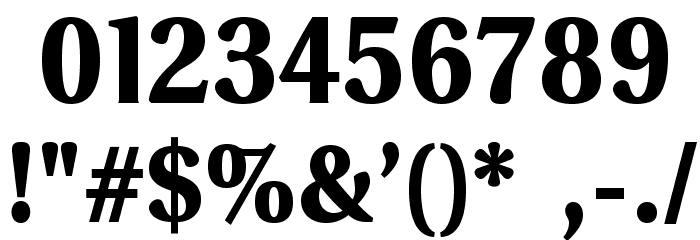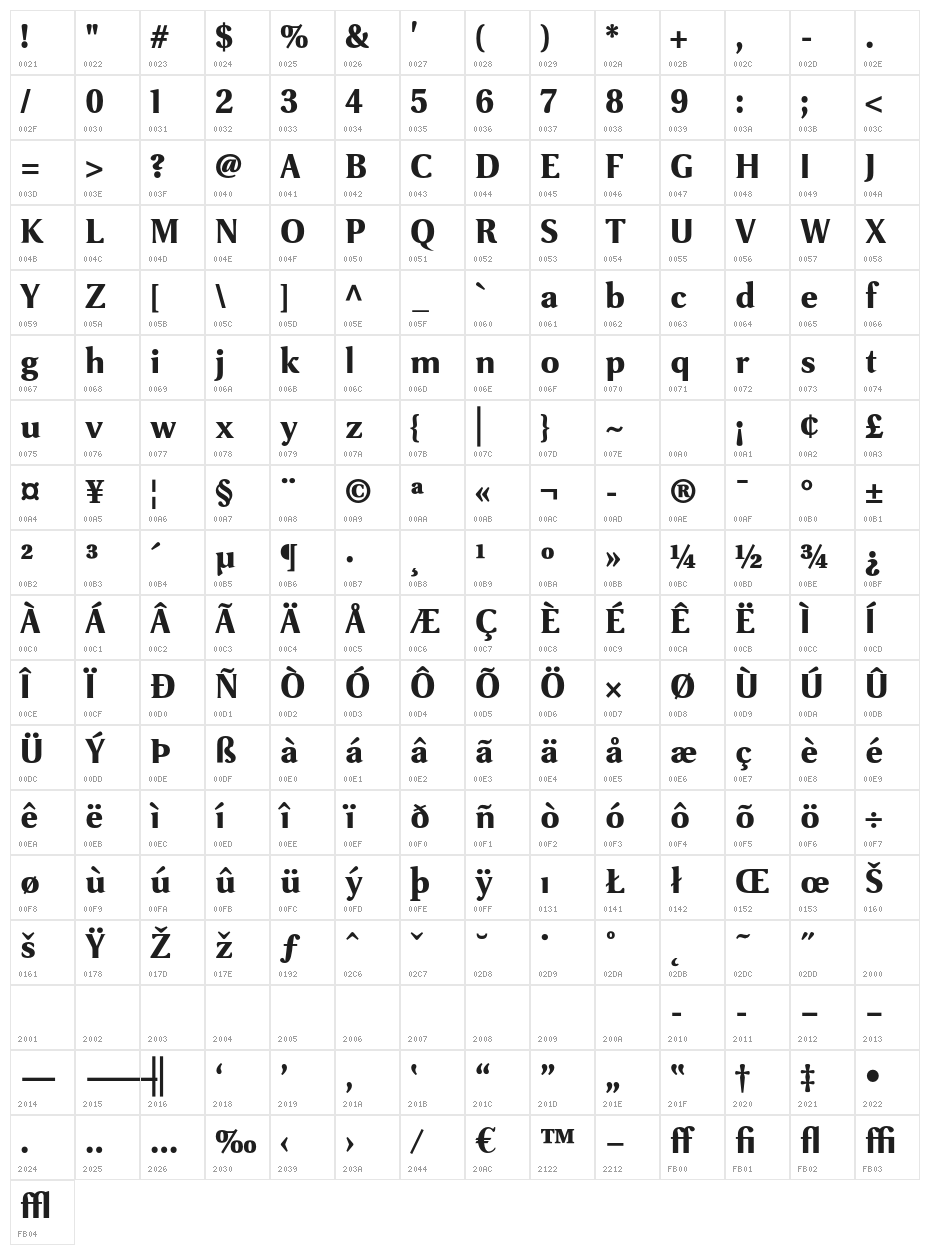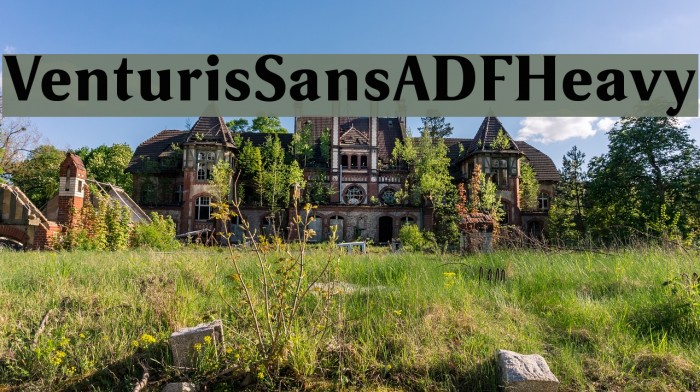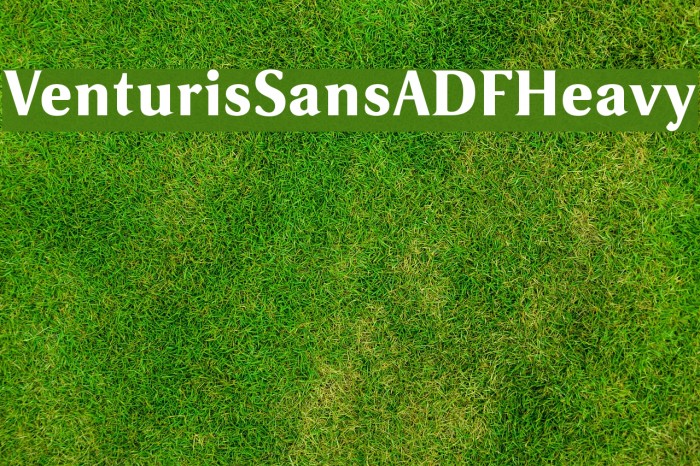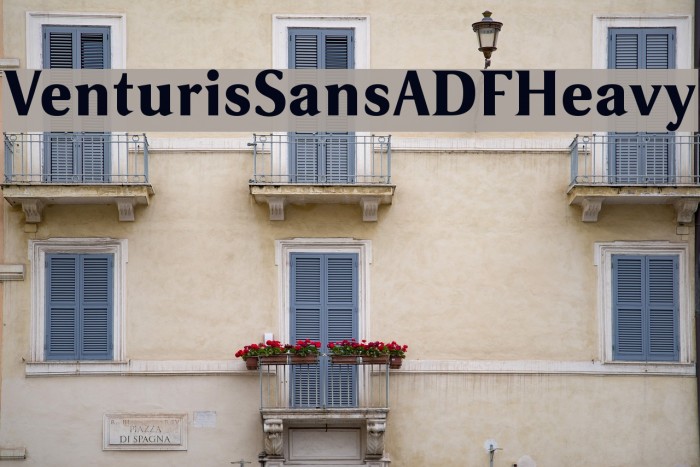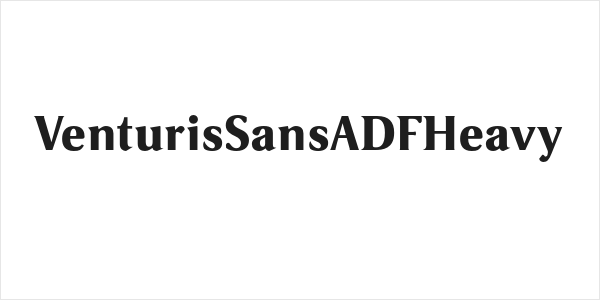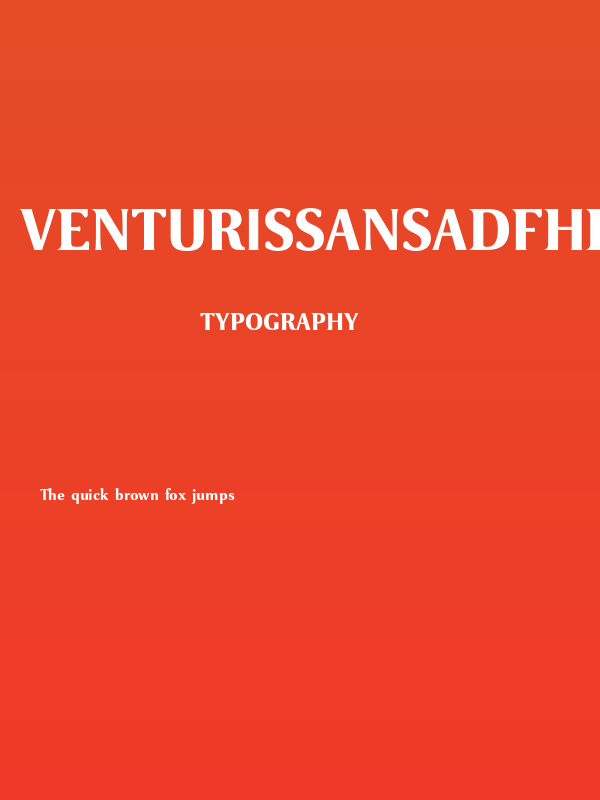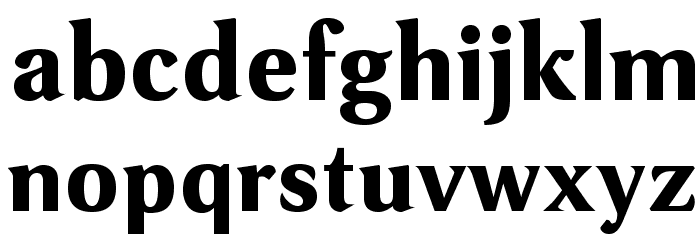
VenturisSansADFHeavy Font
VenturisSansADFHeavy Description
This font exhibits a bold and commanding presence with its heavy weight and strong serif features. The characters are well-defined with a classic serif style that enhances readability while maintaining an authoritative look. The uppercase letters are particularly striking, with a robust structure that suggests stability and confidence. The lowercase letters complement this with a slightly softer yet still substantial appearance. The numerals are clear and balanced, making them suitable for both display and text settings. Special characters are designed with the same attention to detail, ensuring consistency across all glyphs. This font's overall aesthetic is both traditional and versatile, making it suitable for a wide range of applications.
| Proposed Projects | Ideal for headlines, book covers, branding, and formal invitations. |